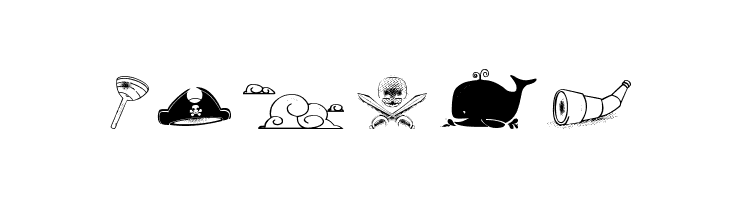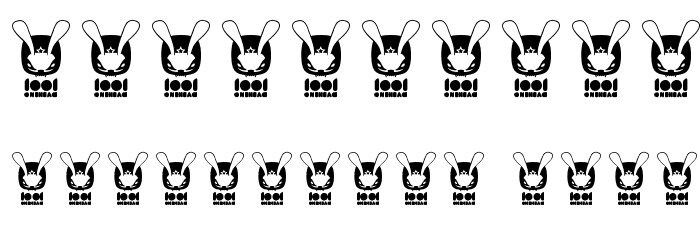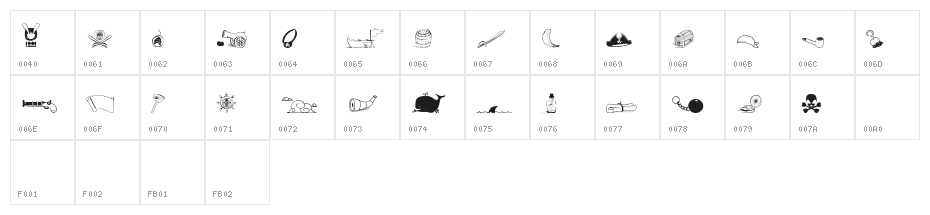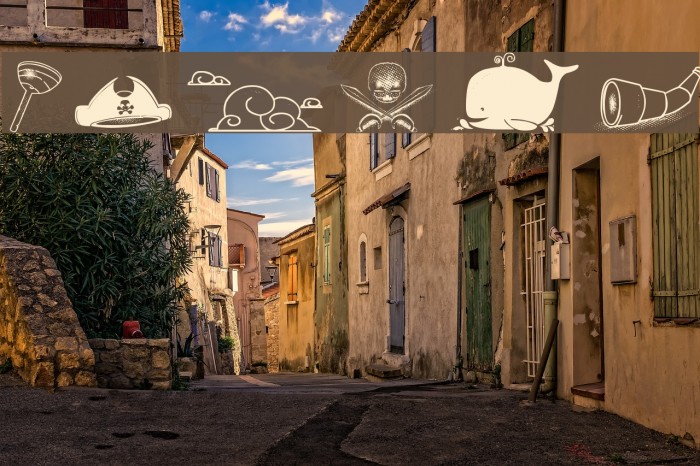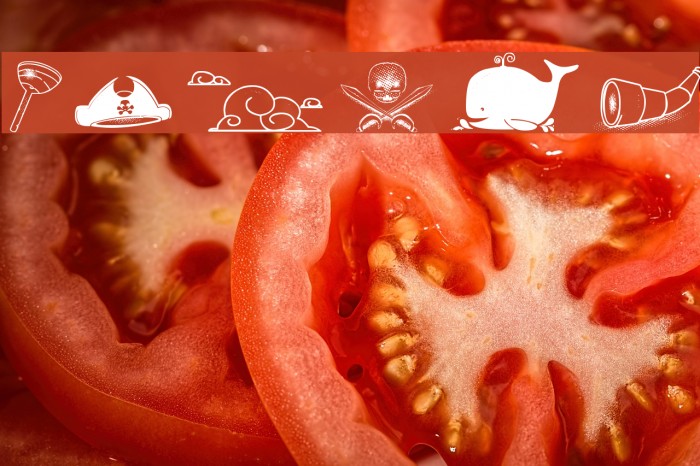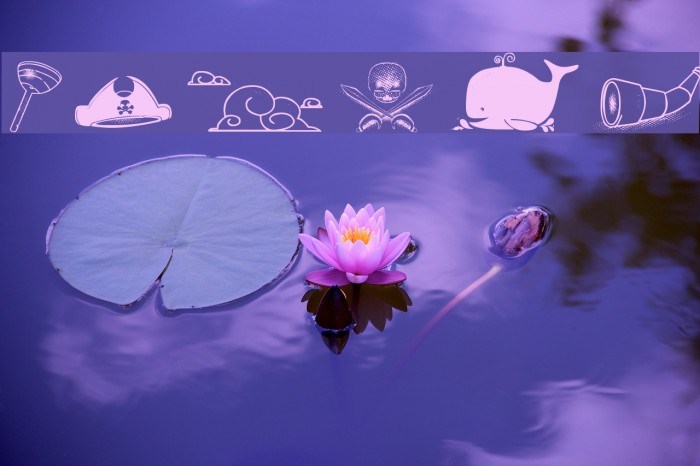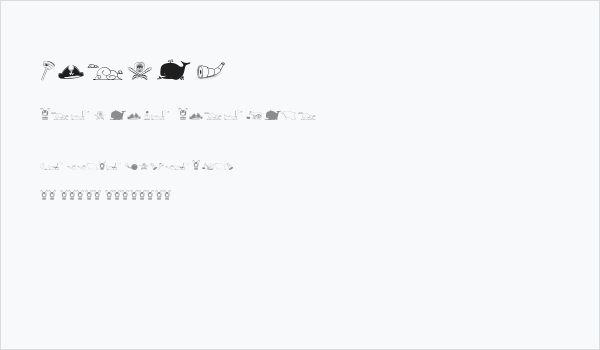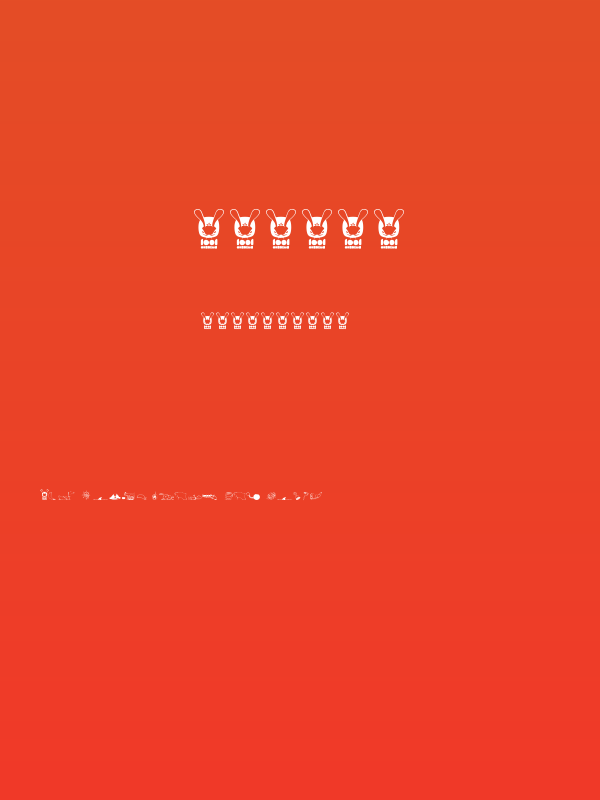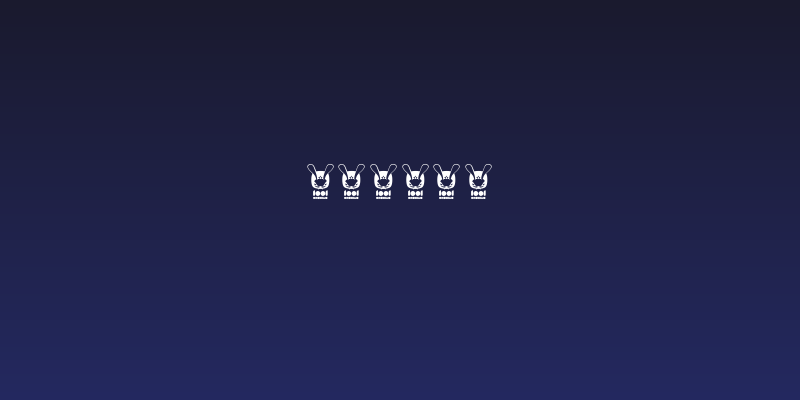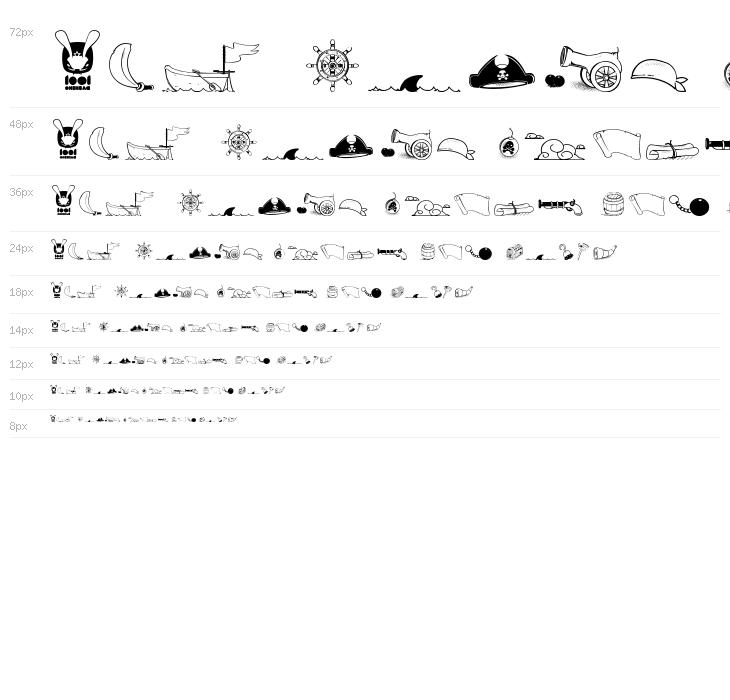
pirats Font
This is not a valid font. The image consists of various pirate-themed illustrations and symbols, including pirate hats, cannons, treasure chests, and other related imagery. These elements are decorative and thematic, designed to evoke a sense of adventure and nautical exploration. The illustrations are detailed and playful, suitable for creative projects that require a whimsical or adventurous touch.
| Use Case | Decorative elements for themed designs. |
| Proposed Projects | Ideal for themed party invitations, children's books, or educational materials about pirates. |